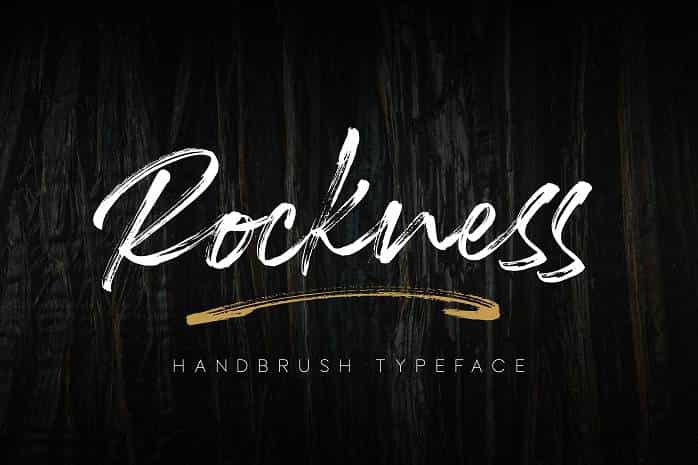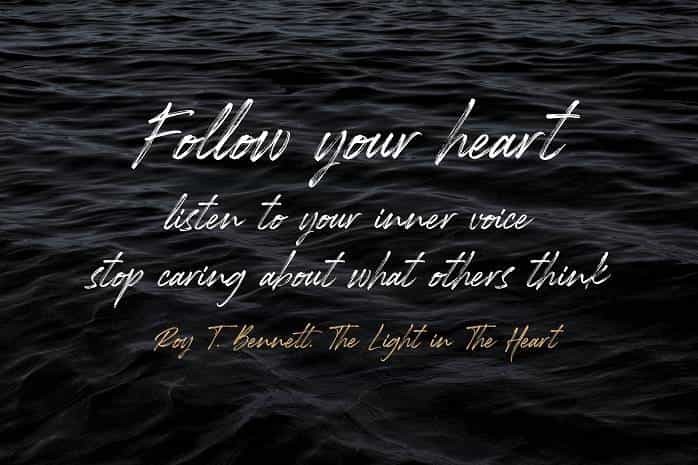
Introducing Rockness Handbrush Typeface. It is a brush script which is written in a casual and hasty manner. Letters are painted in ink with a brush on paper. Then digitized and manually transformed into vector. That is the reason Rockness possesses a charming, genuine and laid-back features. comes with 2 styles while regular and slant variations with a more casual appearance of your text.